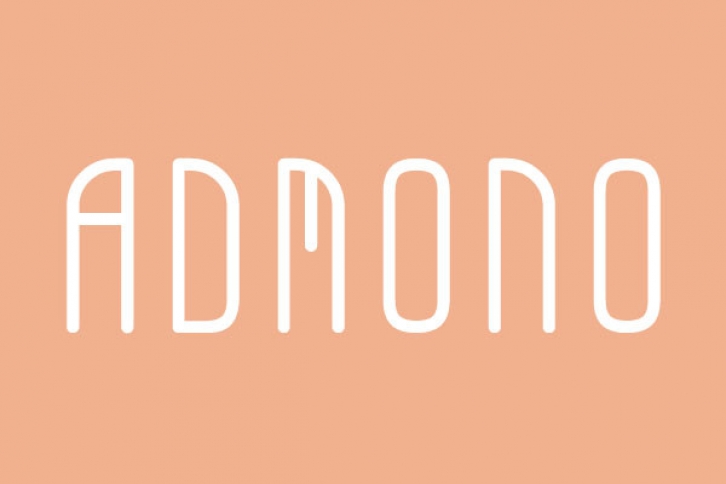
Admono is a simple, minimalist and adaptable sans serif font. Its original style makes it great for creative projects, be it wall posters or for communicating your brand.